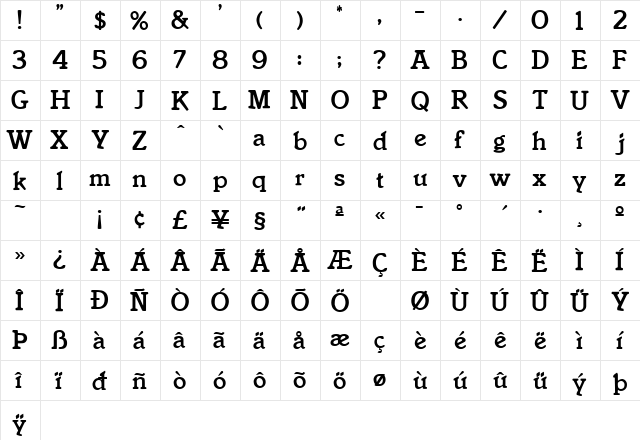
Italianate Regular Font Preview
Italianate Regular
Design Context for Italianate Typeface
Italianate is a composed and adaptable typeface that performs quietly and consistently across a wide range of design contexts.